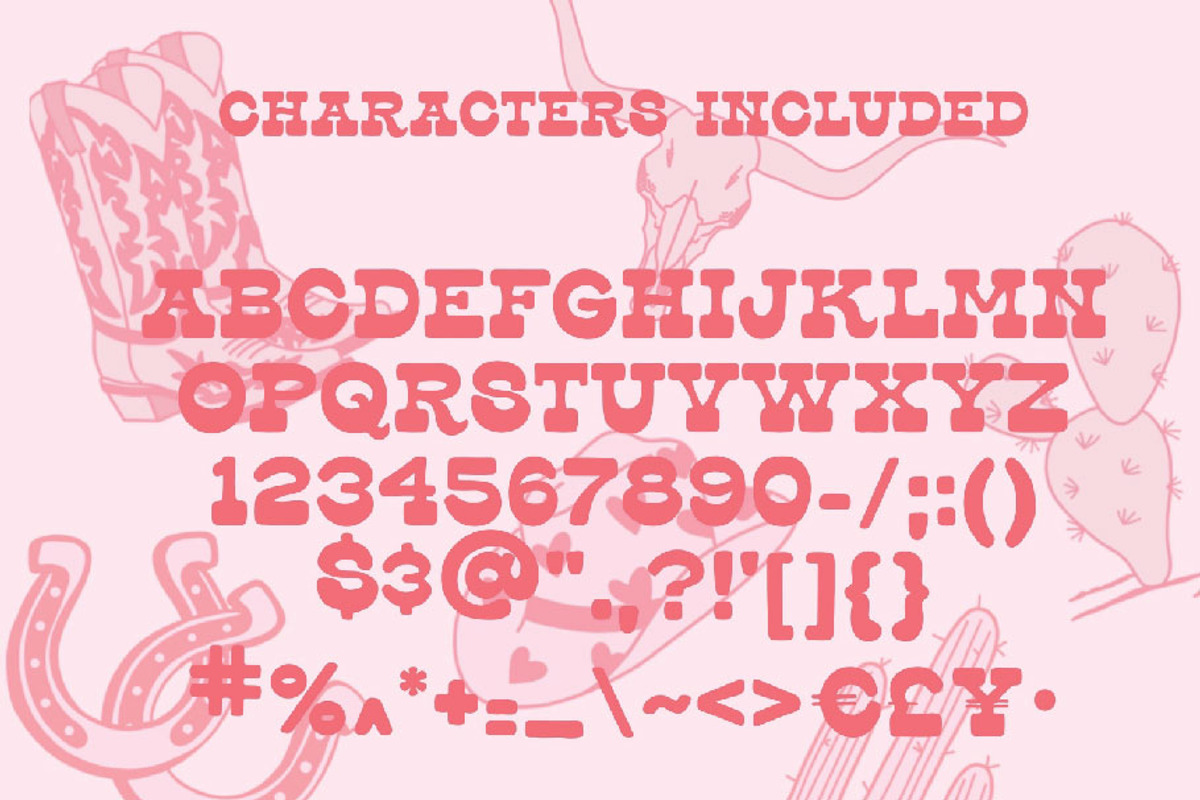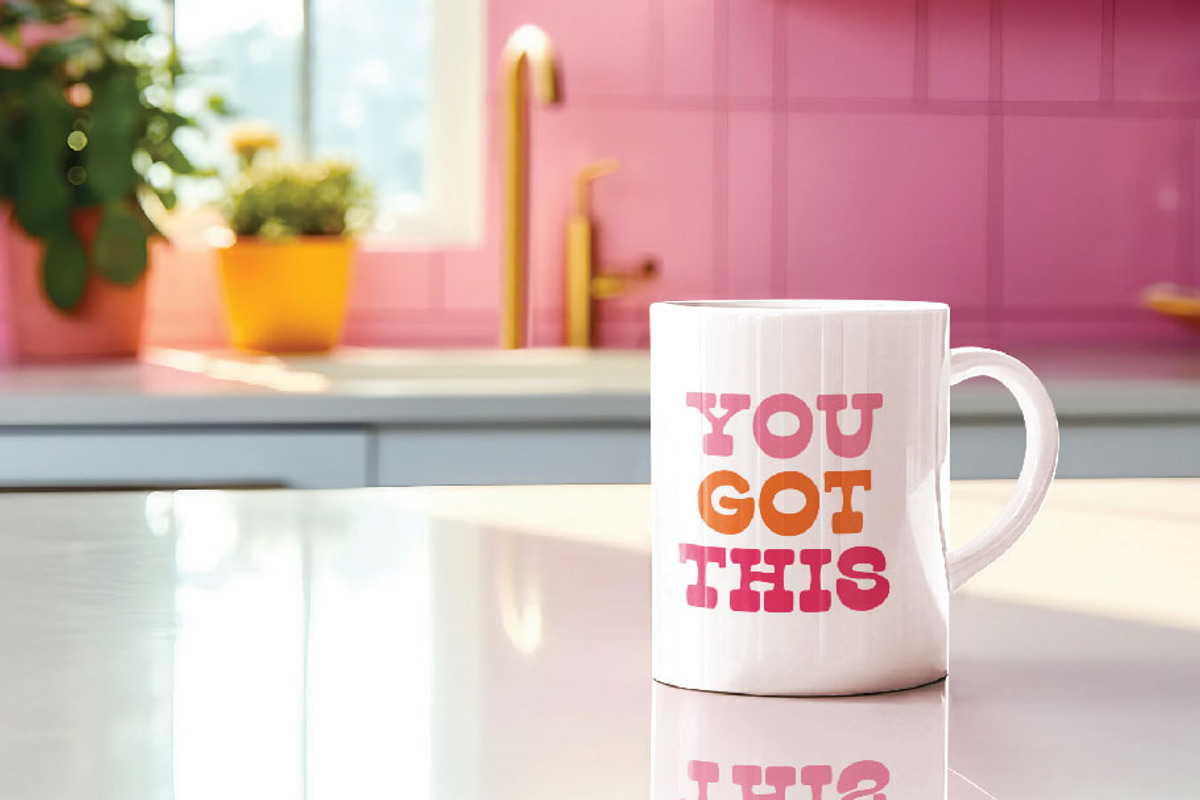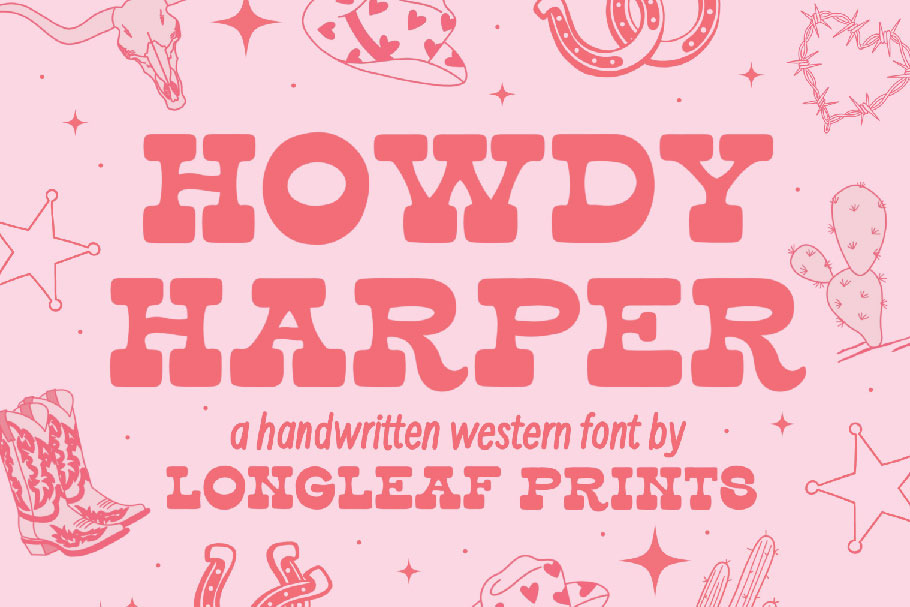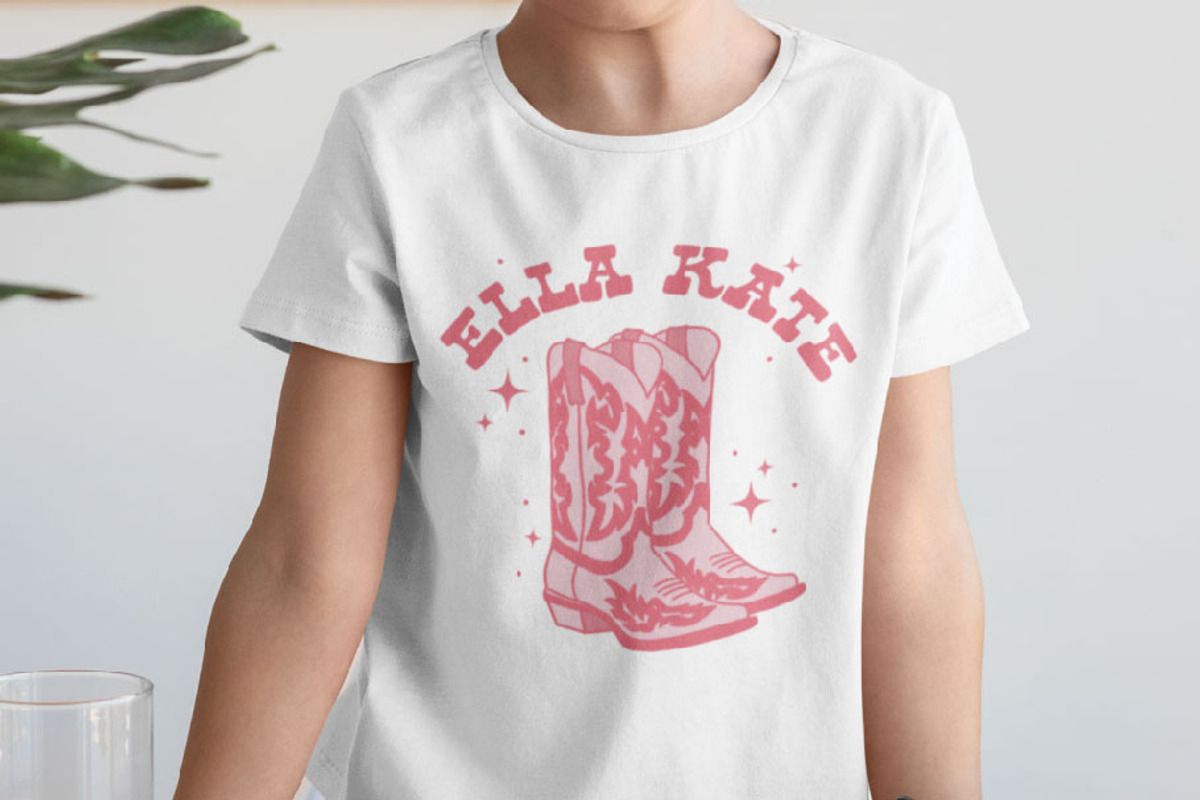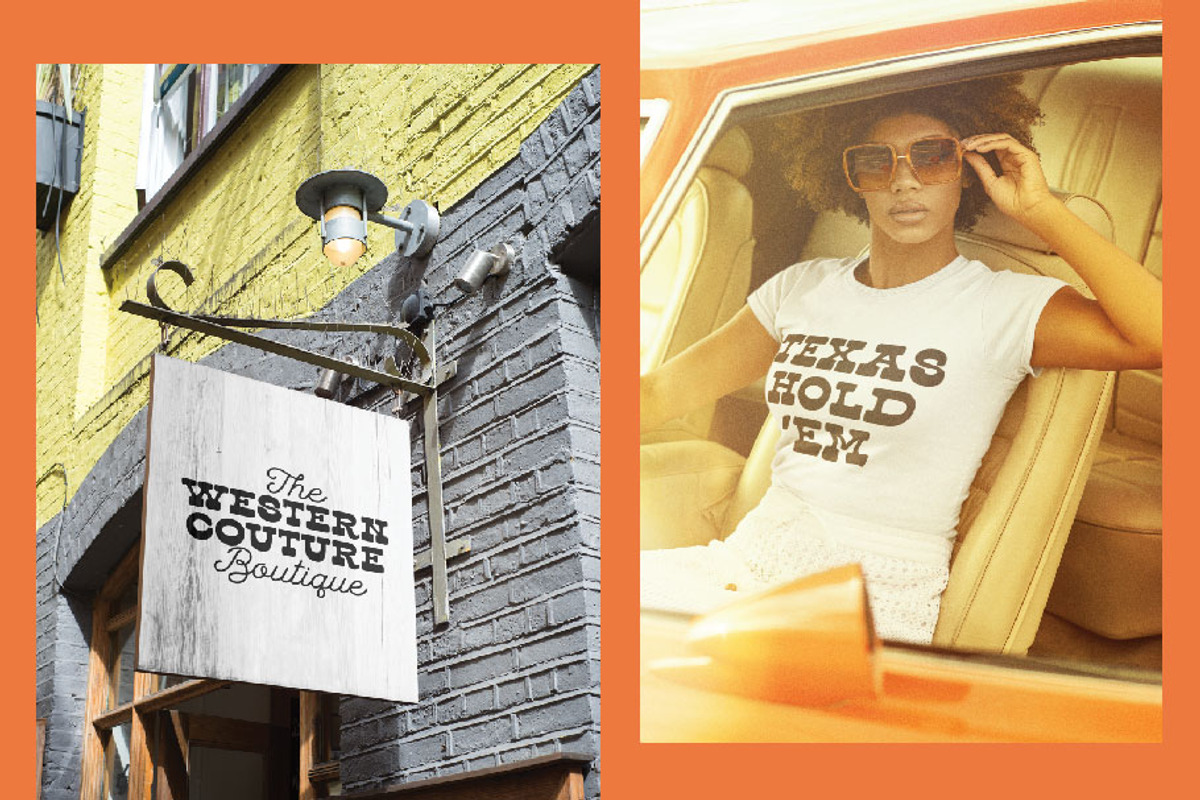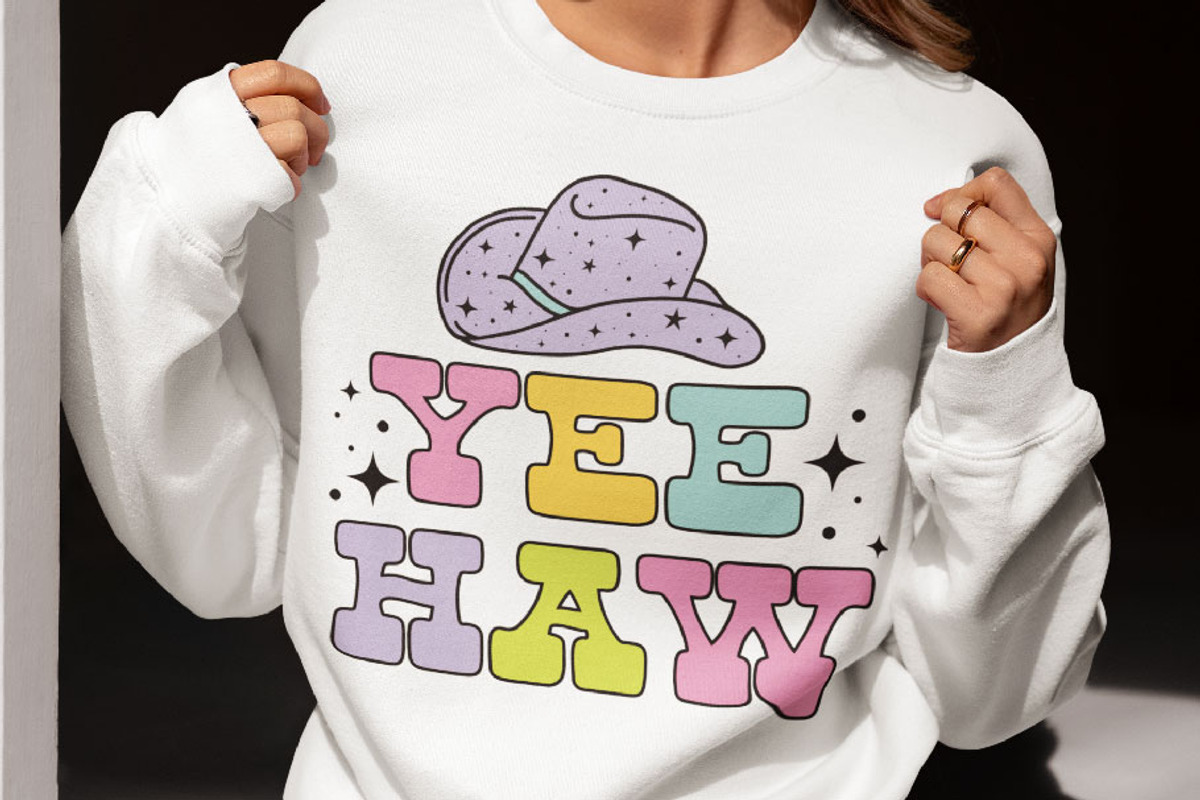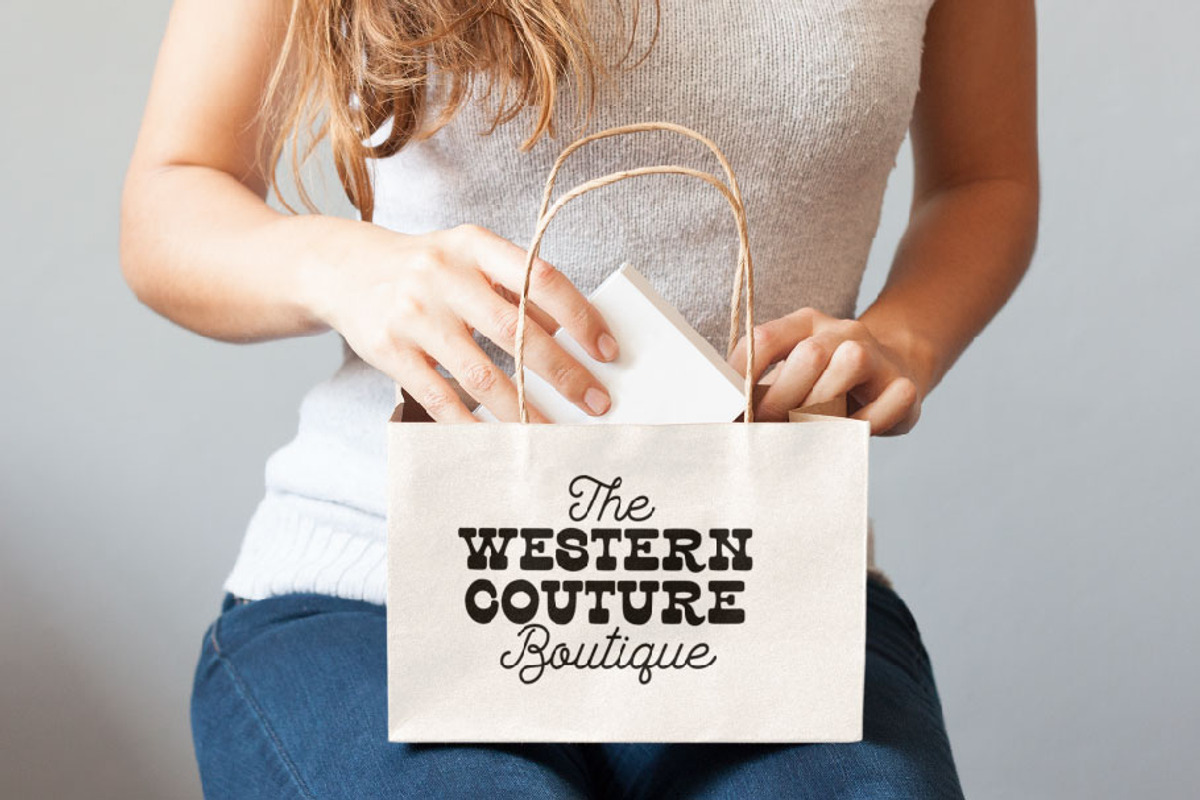
Howdy Harper Handwritten Font
Howdy Harper is a handwritten, western style slab serif font.
Perfect for branding, product design, digital products, graphic tees, logos, and more!